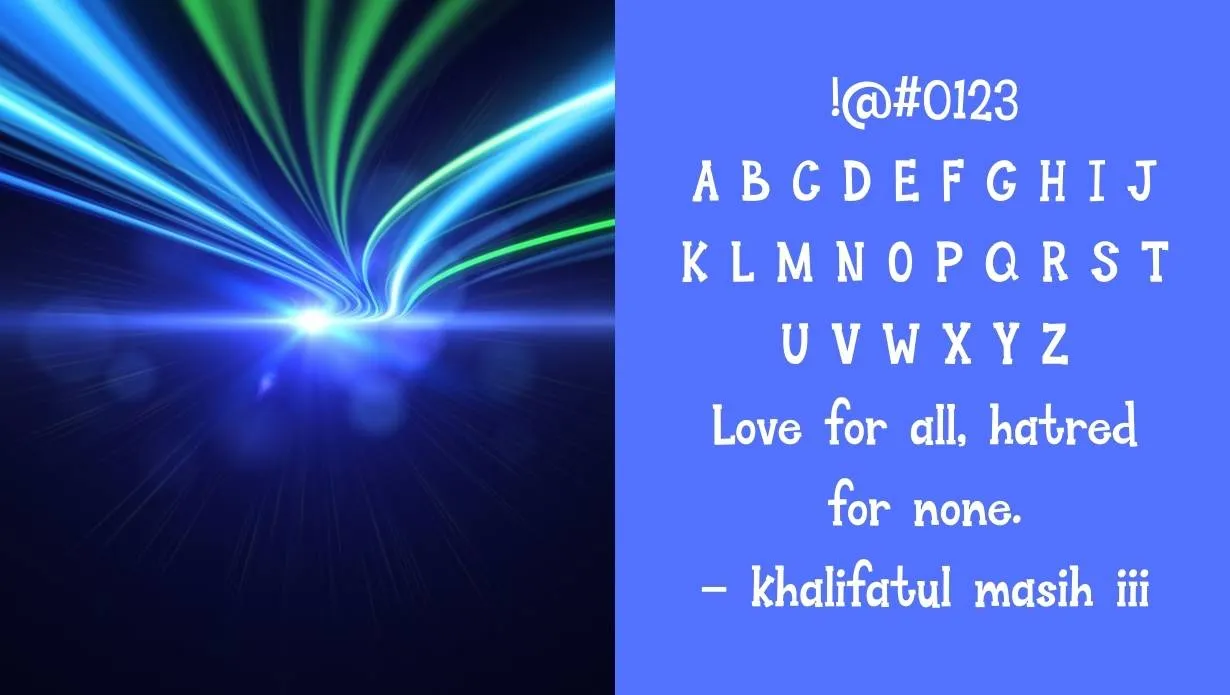
In this post, we present a new stylish typeface known by the name Funny Sports font. This classy typeface was developed and published by Fontles. It belongs to the fancy font family and released in the year 2022. This is a unique font because it comes in two styles. Firstly, the regular style which contains characters, and secondly, the distressed style which includes characters like a to z.
This amazing font is specially designed for sports purposes. It will help you in creating banners, logos, titles, and other headlines related to sports. It is not from google font but you can get it from our websites. You can also use its alternative obelix pro font for various designs.